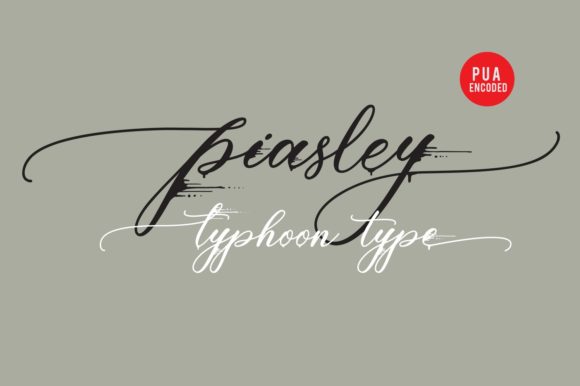
Welcome to the world of Piasley, an enchanting script font family that will cast a spell on your designs, leaving them utterly captivating and unforgettable. Prepare to witness elegance and beauty harmoniously intertwined, as Piasley's delicate strokes dance across your creations, evoking a sense of timeless sophistication.
Unleash your creativity and let Piasley's graceful curves guide you towards extraordinary outcomes. Its thin, elegant lines will transform your designs into masterpieces, leaving a lasting impression on your audience. Piasley is meticulously crafted to enhance every element of your work, whether it's a heartfelt letter, a stunning invitation, or a captivating marketing campaign.
With Piasley, your words will leap off the page, captivating readers with its charm and grace. Its PUA encoding makes accessing all glyphs and swashes a breeze, allowing you to effortlessly add intricate details and flourishes to your designs. Let your imagination soar as you explore the endless possibilities that Piasley presents.
Piasley is more than just a font; it's an artistic expression that will elevate your projects to new heights. Its delicate script adds a touch of refinement and allure, making your creations stand out from the crowd. Discover the magic of Piasley today and embark on a typographic journey that will leave you breathless.